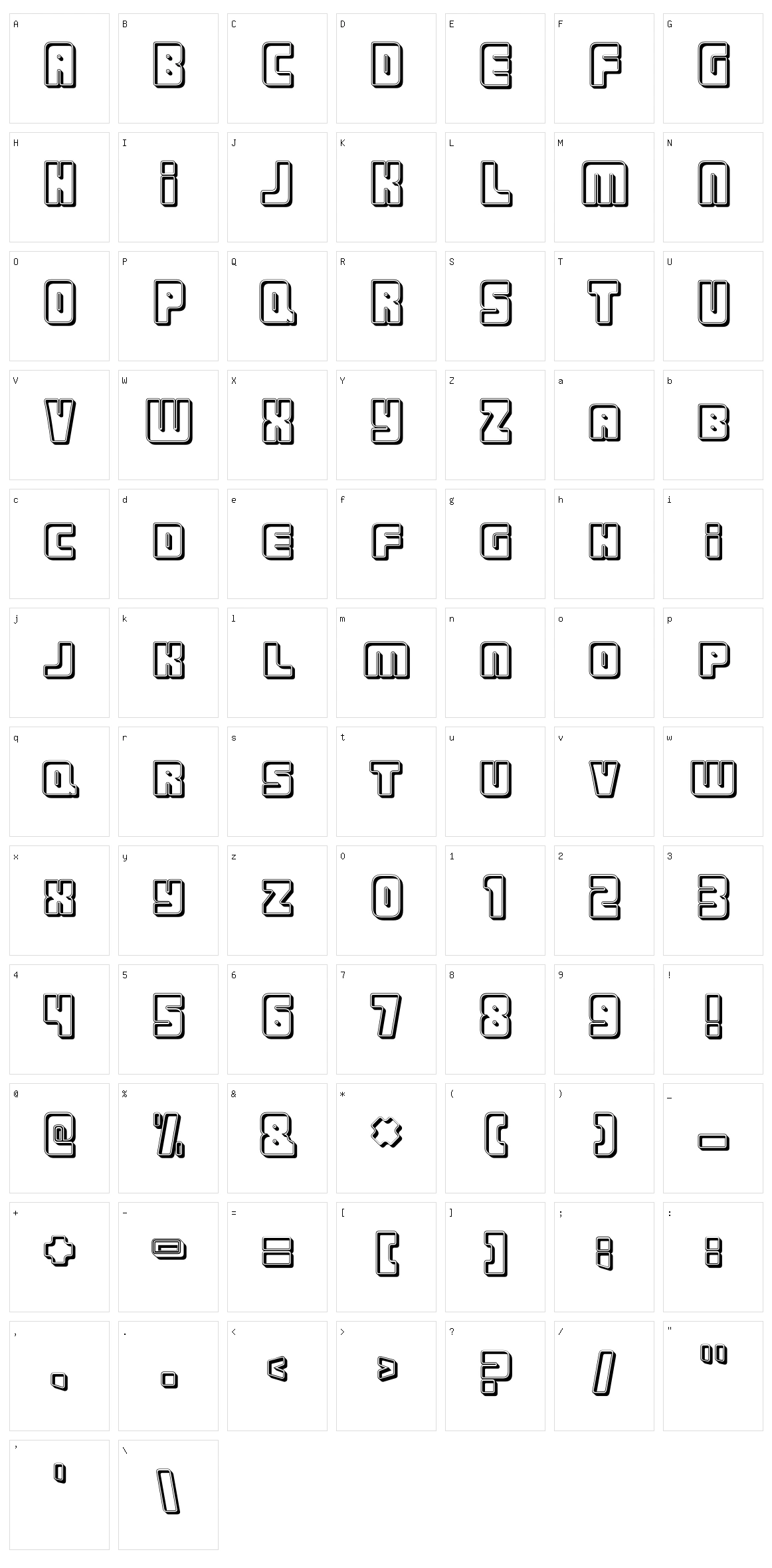
Urban Constructed
Designed by: Nils von Blanc
Urban Constructed is a Font Nils von Blanc (www.nils-von-blanc.de).
The Font was inspired by Jakob Fischer / PizzaDude and his "Nonstop" Font.